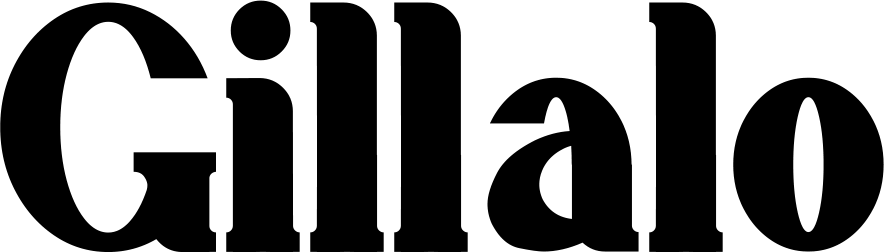
Gillalo Font
Looking for a special serif font?! So give the Gillalo a try! It will give your design the final touch and you will have a fashionable, typography that is a real beauty. This serif font comes with bold characters that are perfect. Your typography will be comfortable in the audience’s eye and they will appreciate that.